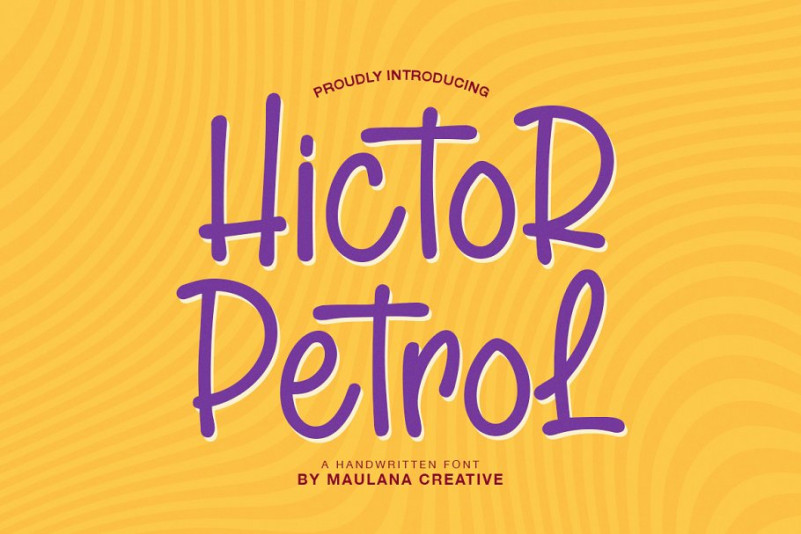
Hictor Petrol Font
Hictor Petrol is a handwritten sans serif font. This font is very simple and fun to use! Hictor Petrol is perfect for create a quotes, logo, badge, insignia, packaging, headline, poster, t-shirt/apparel, greeting card, wedding invitation and more. This Hictor Petrol font include multilingual language.